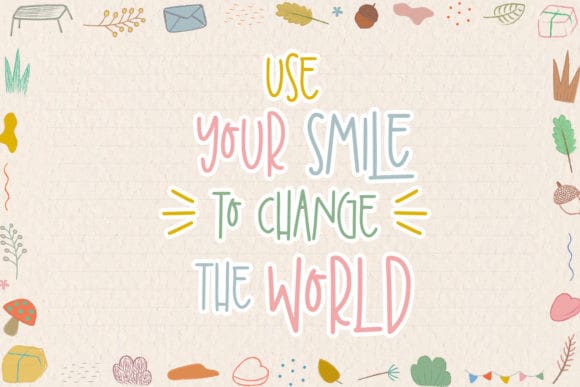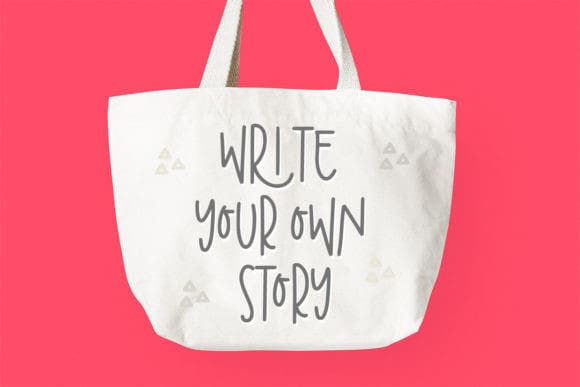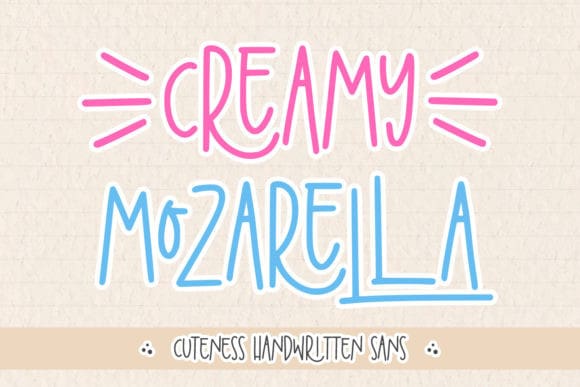
Creamy Mozarella Font
Creamy Mozarella Font is a playful display font that is great for lettering, quotes, logos, t-shirt designs, mugs, tote bag designs, cards, banners, social media posts, and any craft project you can think of!